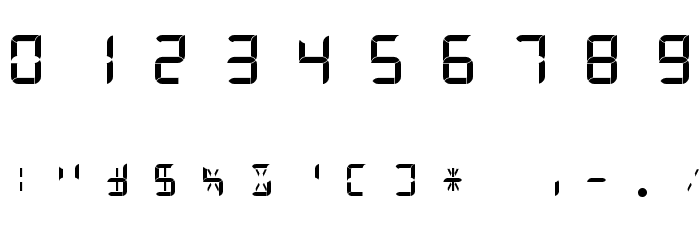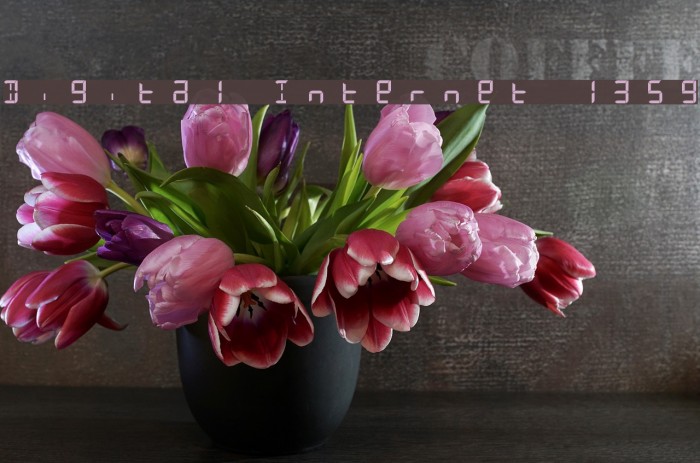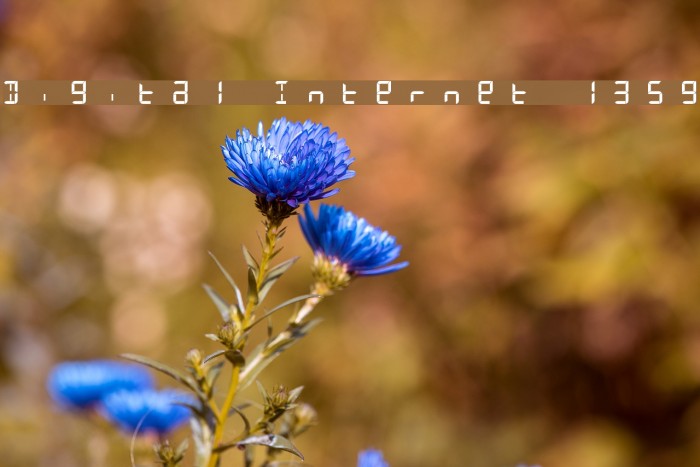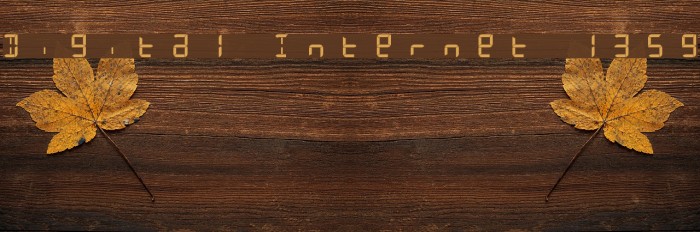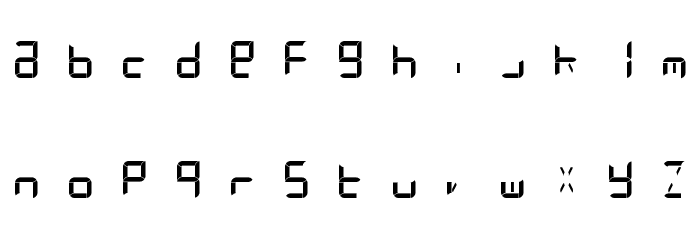
Digital Internet 13sg Font
Digital Internet 13sg Description
This font features a digital, futuristic design reminiscent of old digital displays and electronic devices. The characters are constructed with a geometric, segmented style, giving them a mechanical and technical appearance. The font is highly legible, with each character distinct and easily recognizable. The angular and blocky design is consistent across uppercase, lowercase, numbers, and special characters, maintaining a cohesive look. This font's unique style is ideal for projects that require a modern, tech-inspired aesthetic.
| Proposed Projects | Ideal for tech-related branding, digital interfaces, video game design, and sci-fi themed projects. |